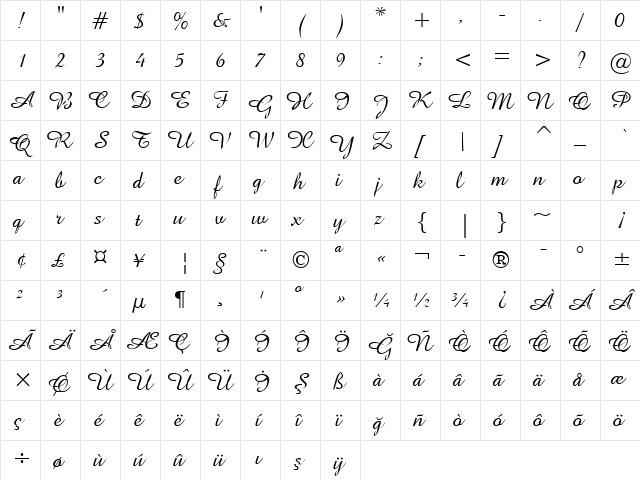
TrSah Amazone BT Regular
Design Context for TrSah Amazone BT Typeface
TrSah Amazone BT is a composed and adaptable typeface that performs quietly and consistently across a wide range of design contexts.